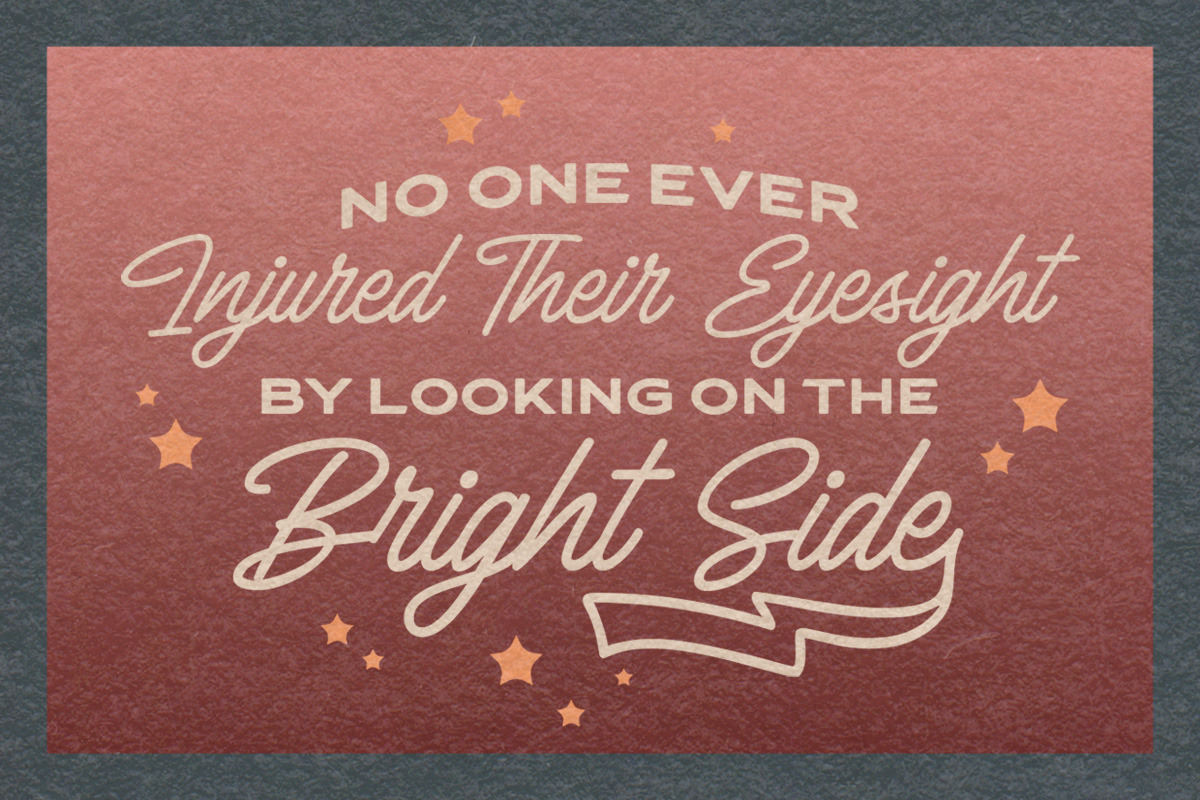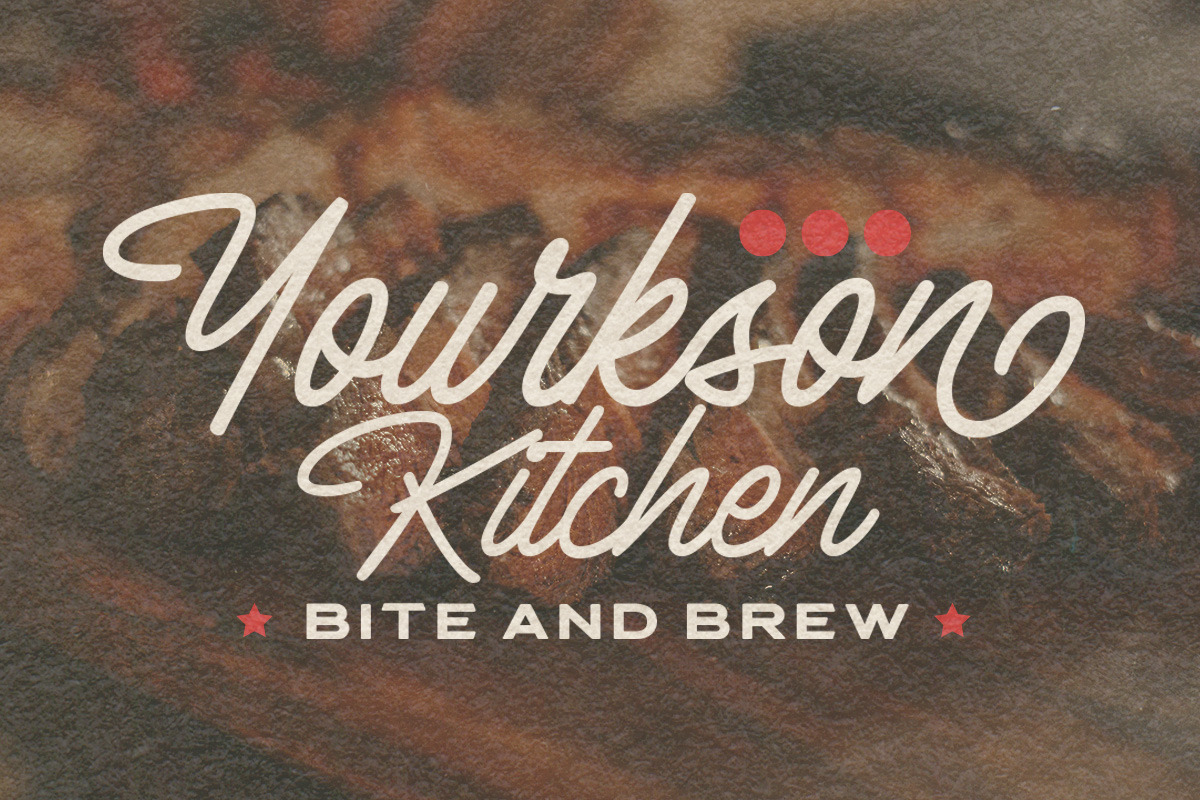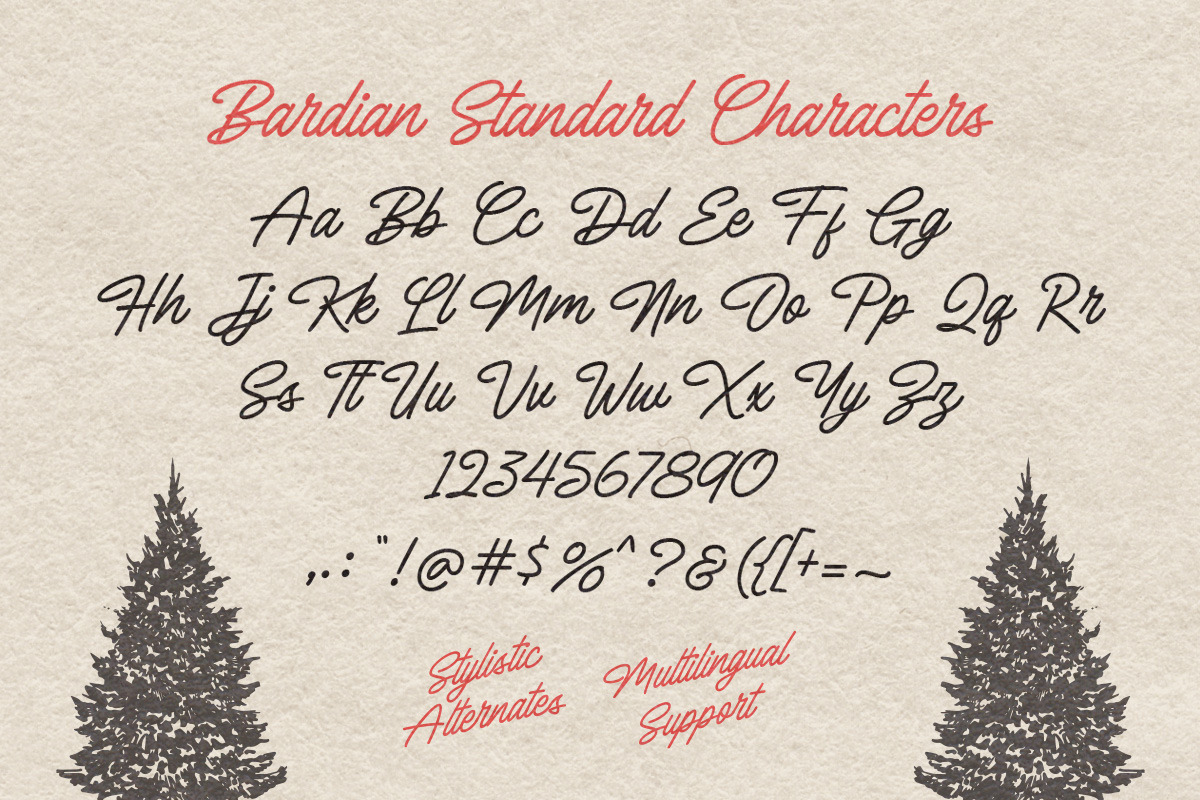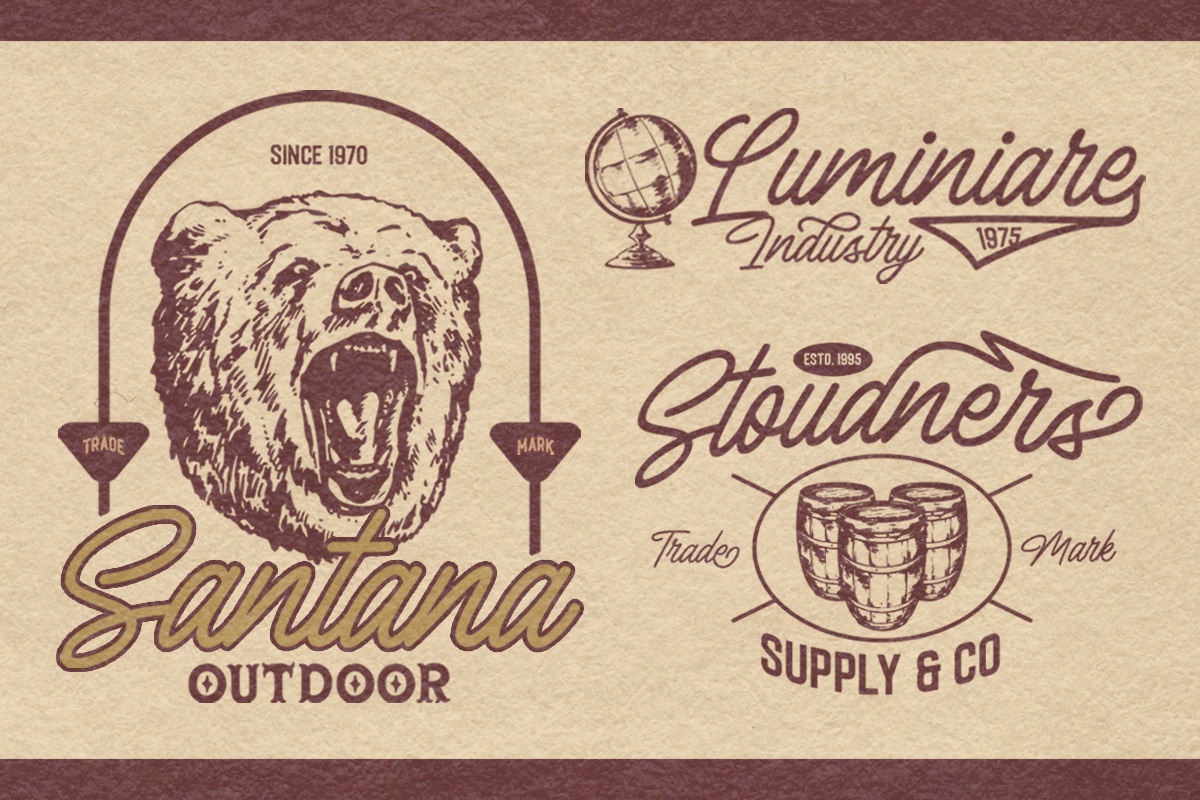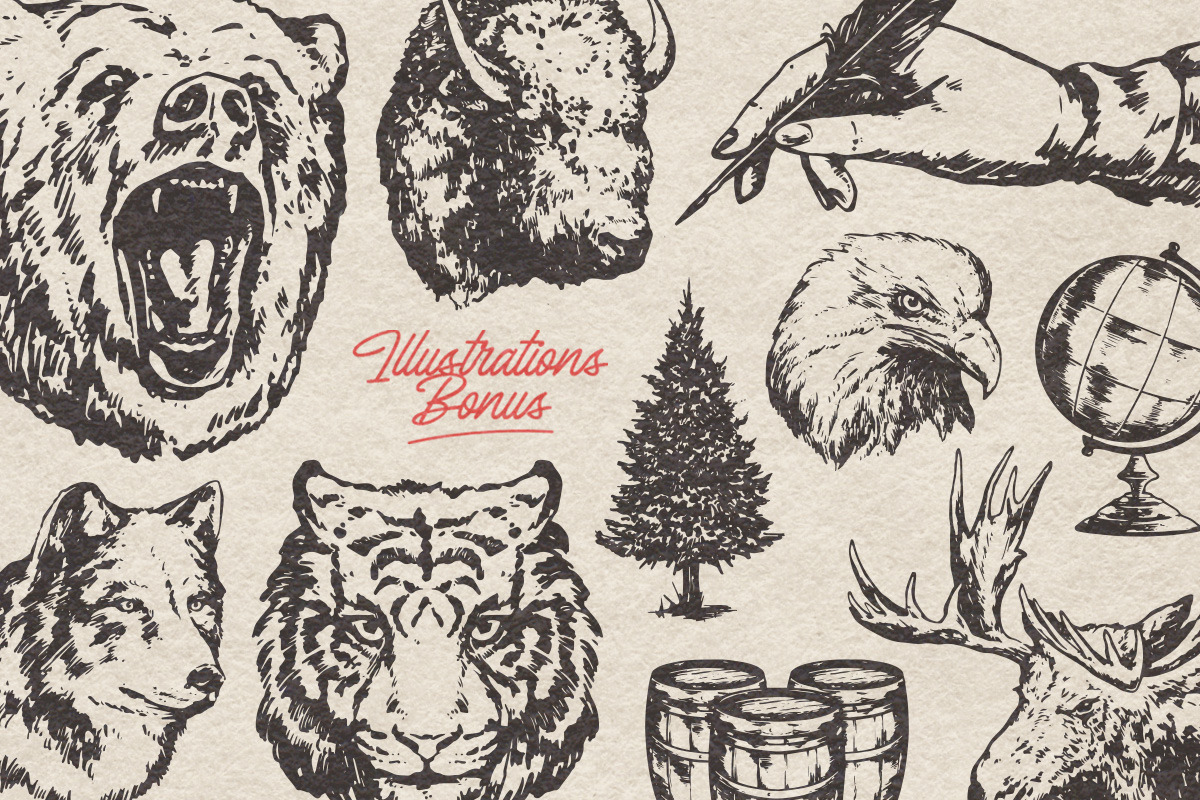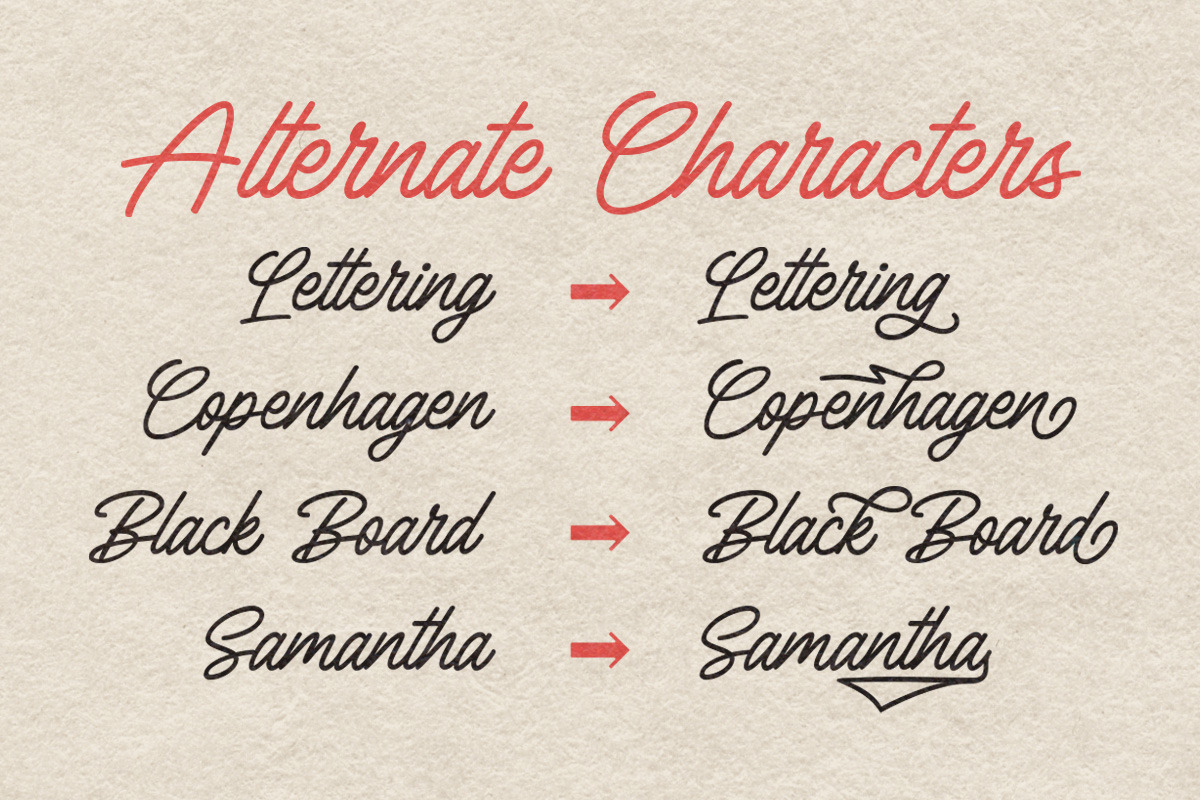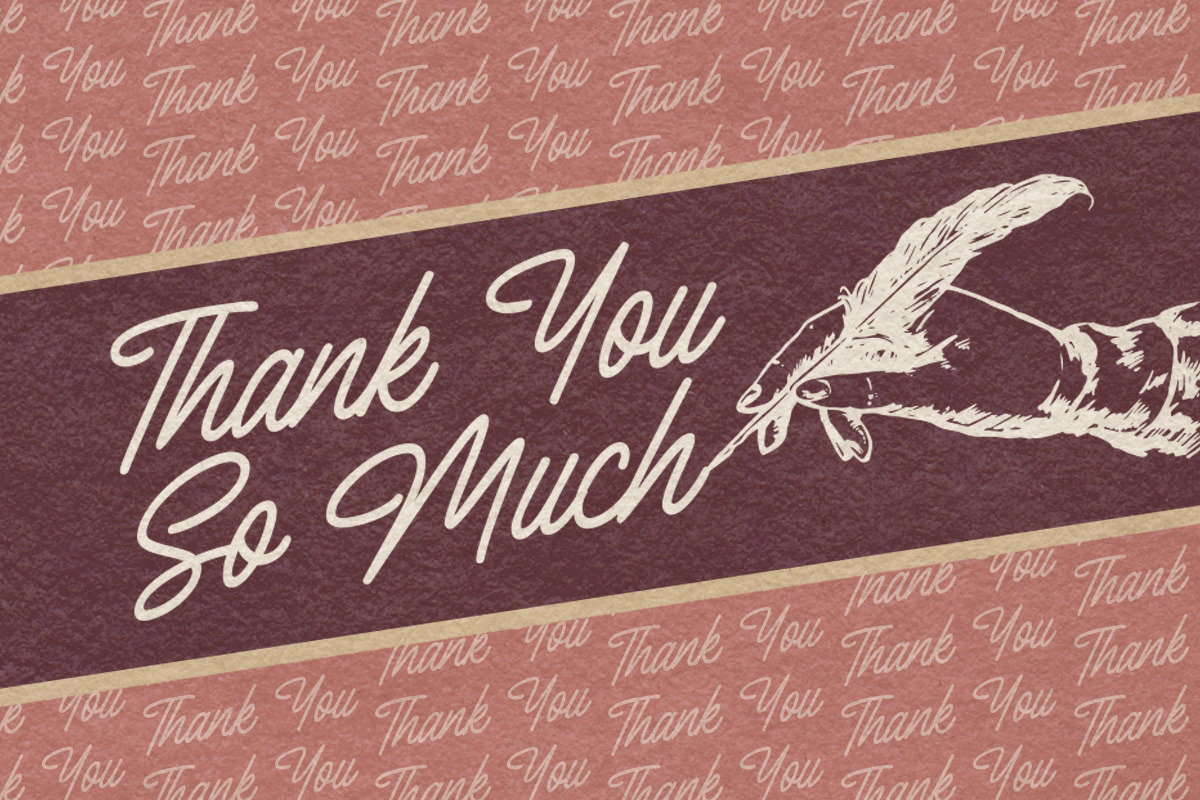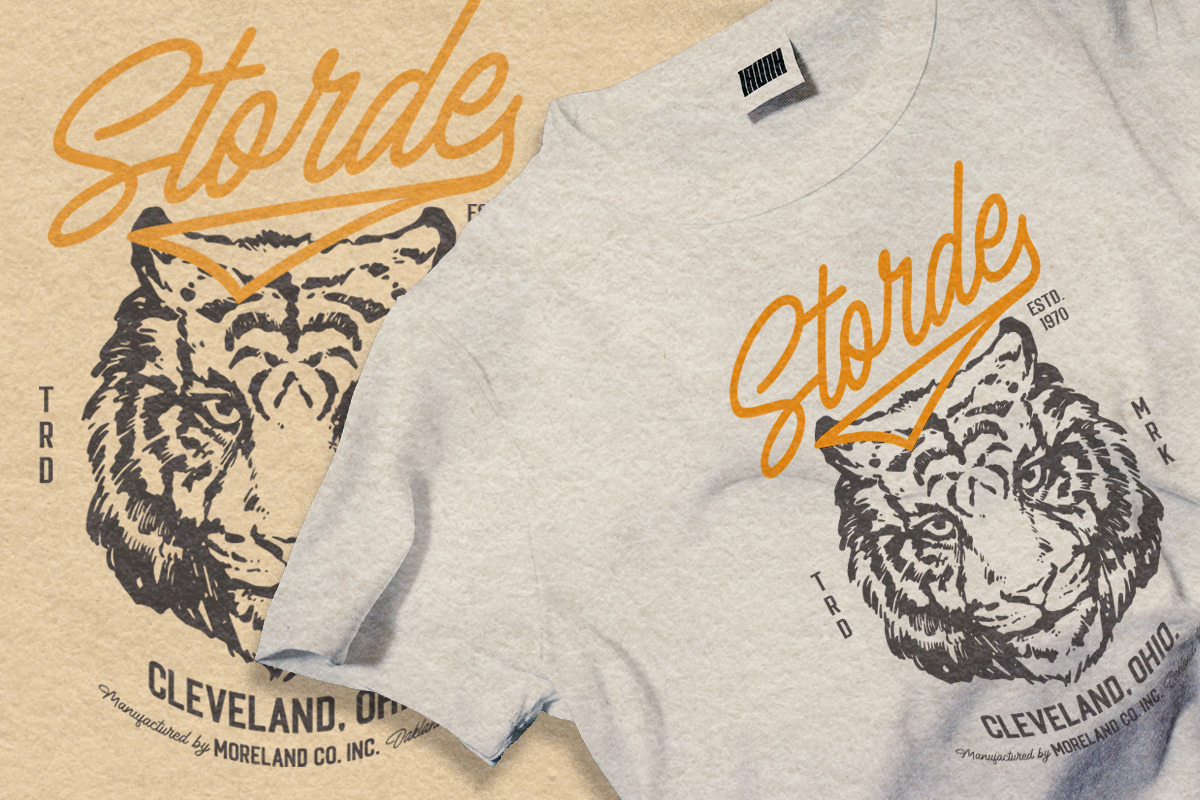
Bardian - Monoline Script
Introducing, Bardian - a bold monoline script with a touch of vintage look and feel. You will also get 10 detailed hand drawn objects. This type of font perfectly made to be applied especially in logo, headline, signage and the other various formal forms such as invitations, labels, logos, magazines, books, greeting / wedding cards, packaging, fashion, make up, stationery, novels, labels or any type of advertising purpose.
- alternates / swashes and ligatures
- 10 hand drawn objects